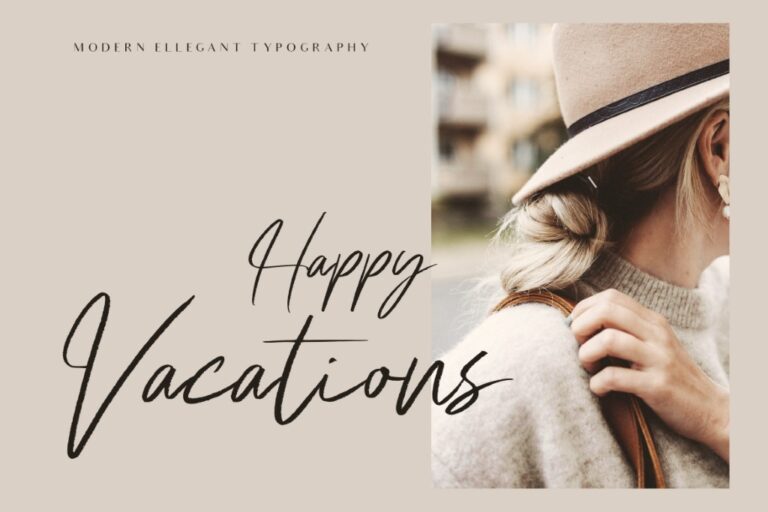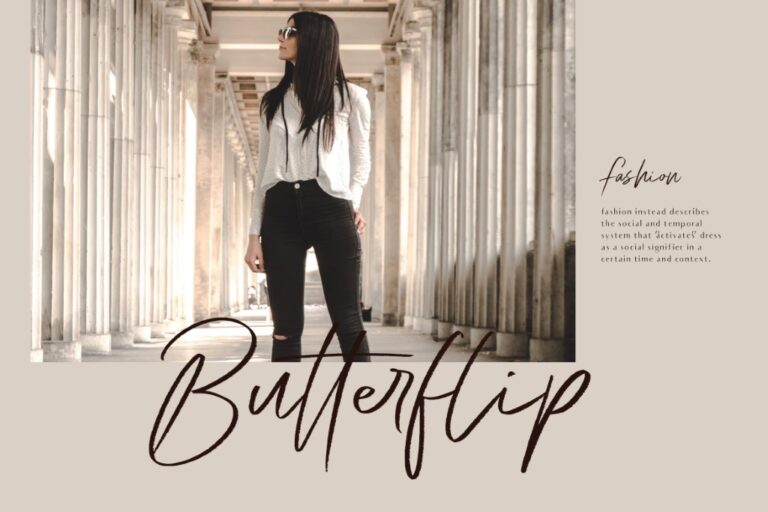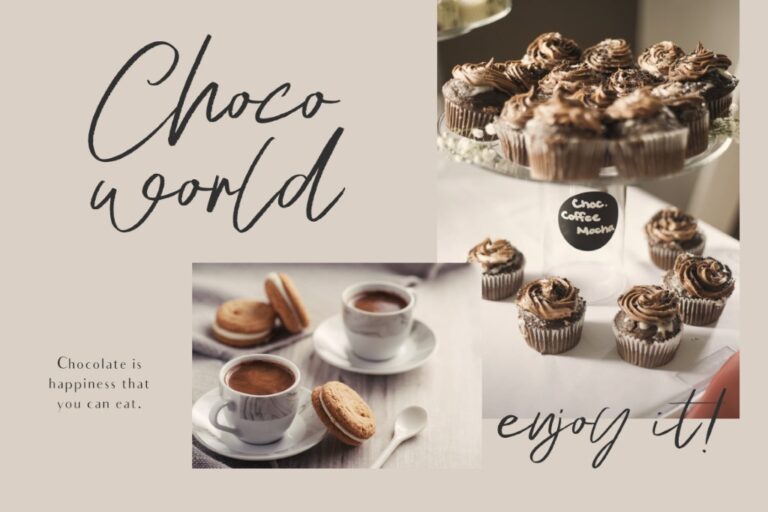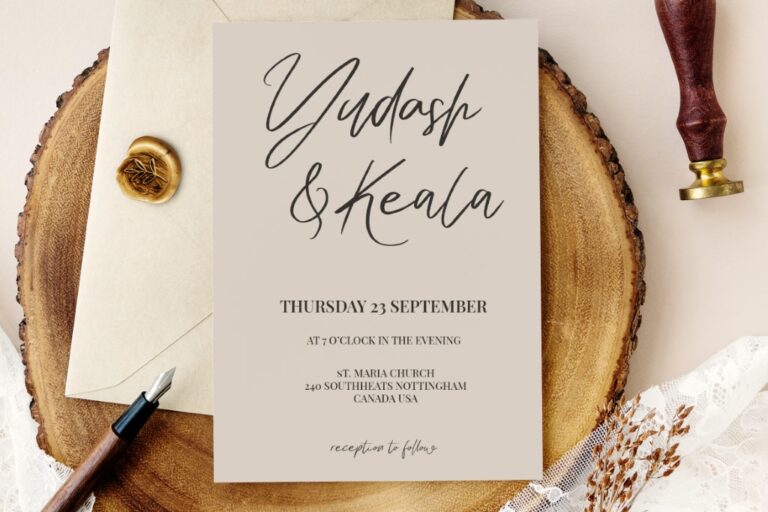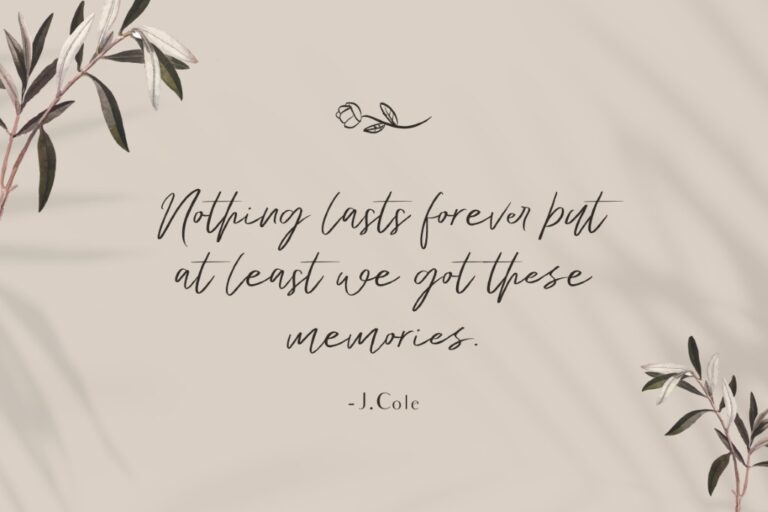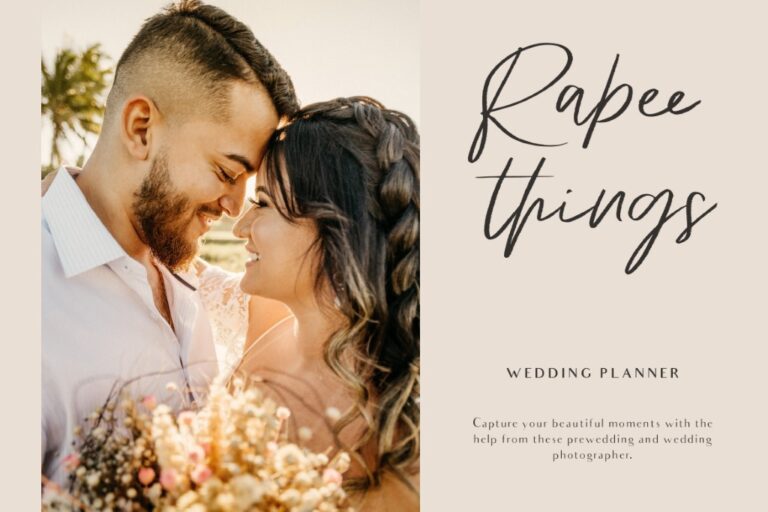
Me Amanda
Me Amanda is modern calligraphy. We made it carefully with natural touch. Me Amanda is made for elegant design project. You can use it for logo, web headline, instagram story, watermark photography, business card, advertisement, and many others.
Me Amanda also has simple extras that make this font more beautiful.